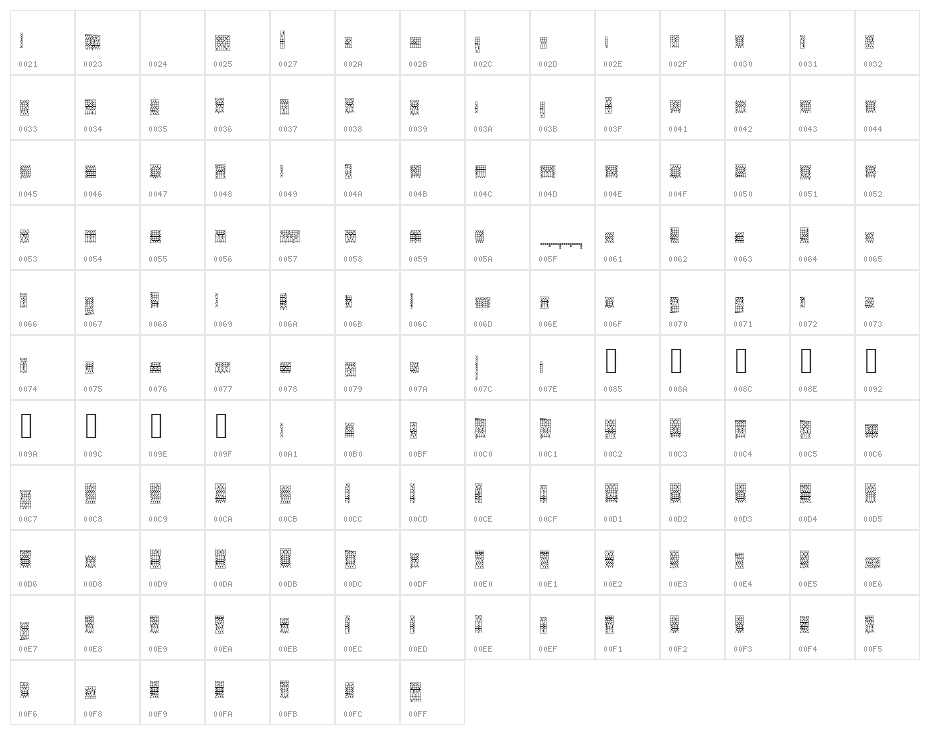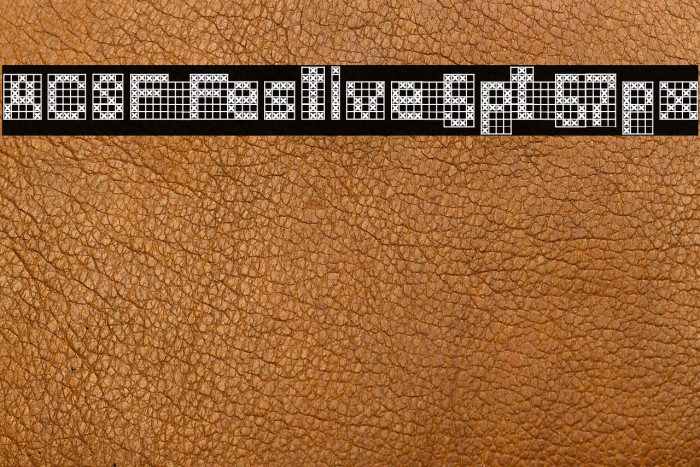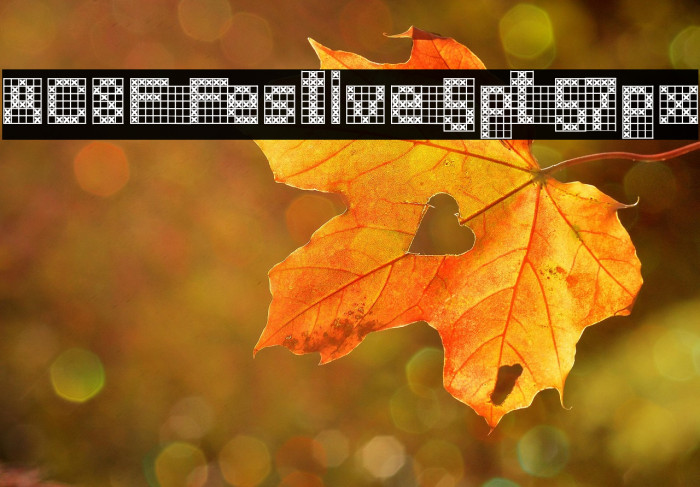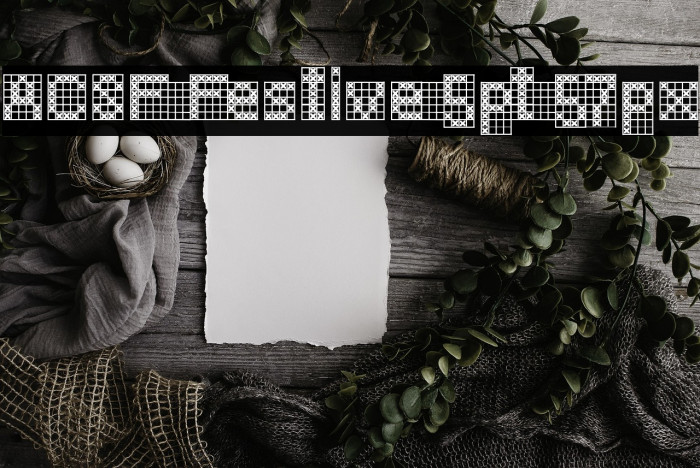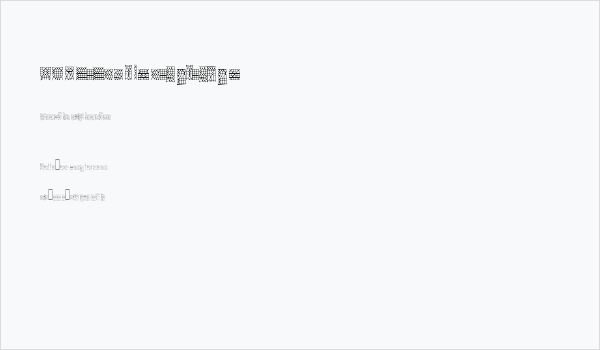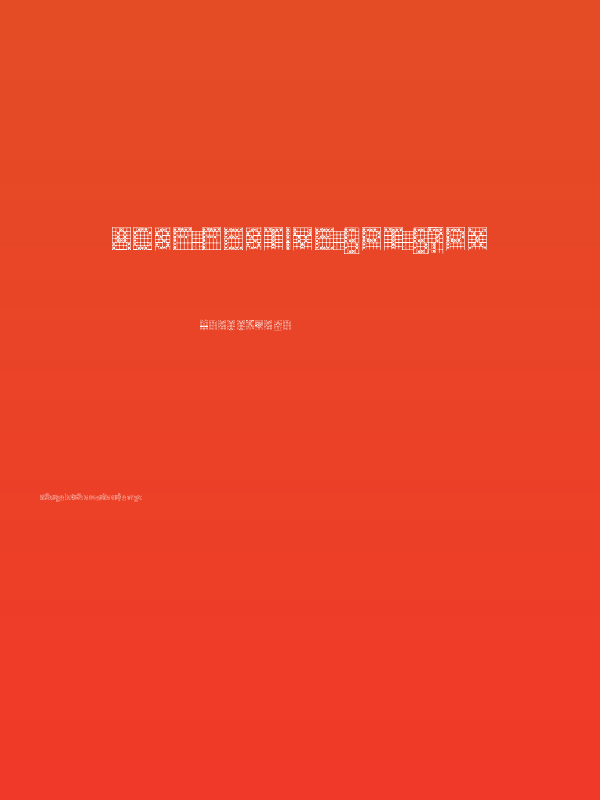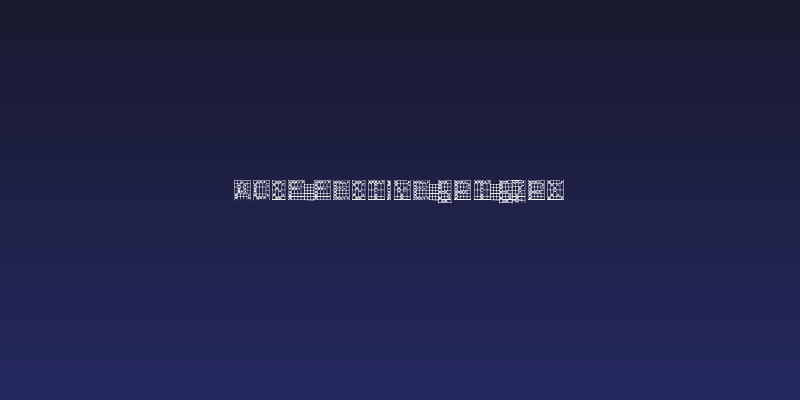
ACSF Festive 5pt 57px Font
ACSF Festive 5pt 57px Description
This font features a unique and intricate design, characterized by a grid-like pattern filled with decorative elements. Each character is enclosed within a square, creating a mosaic-like appearance. The style is highly decorative, with a playful and festive feel, making it stand out for special occasions or themed projects. The characters are evenly spaced, and the design is consistent across uppercase, lowercase, numbers, and special symbols, maintaining a cohesive look throughout.
| Proposed Projects | Ideal for holiday cards, party invitations, festive banners, and decorative posters. |